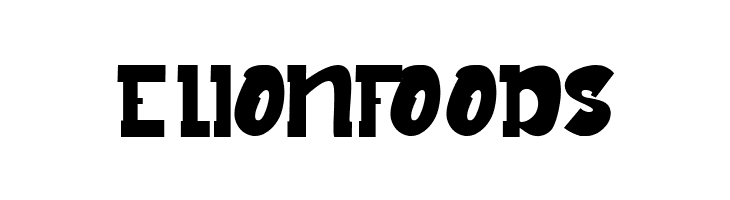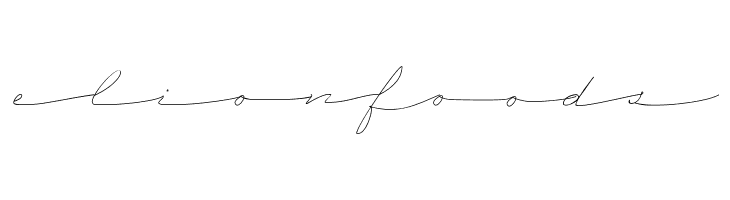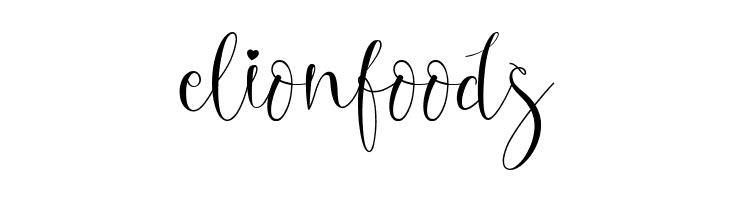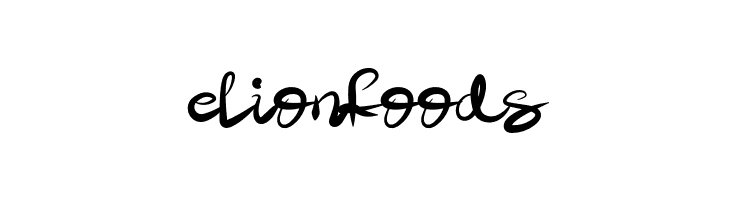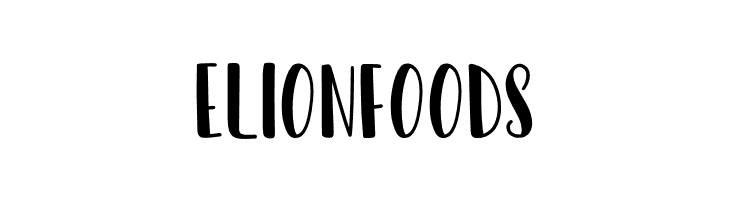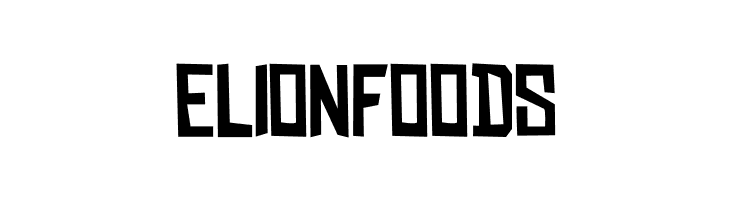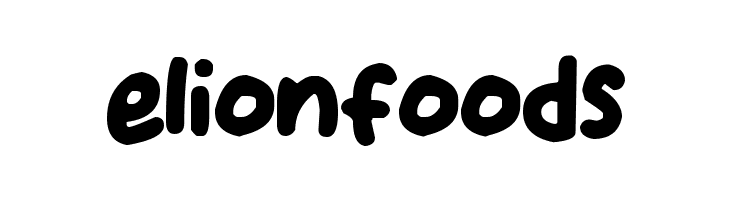
A playful, handwritten font with bold, rounded strokes and a casual, friendly appearance.
A graceful script font with fluid, connected letters and a handwritten style.
A playful, handwritten font with a whimsical and friendly style.
An elegant cursive font with decorative flourishes and smooth connections.
A playful, rounded typeface with a bold and friendly appearance.
A playful, handwritten font with an organic and casual style.
A playful, casual handwritten font with smooth, flowing lines.
A bold, geometric font with angular, blocky characters.
A playful, informal handwritten font with a casual and approachable style.